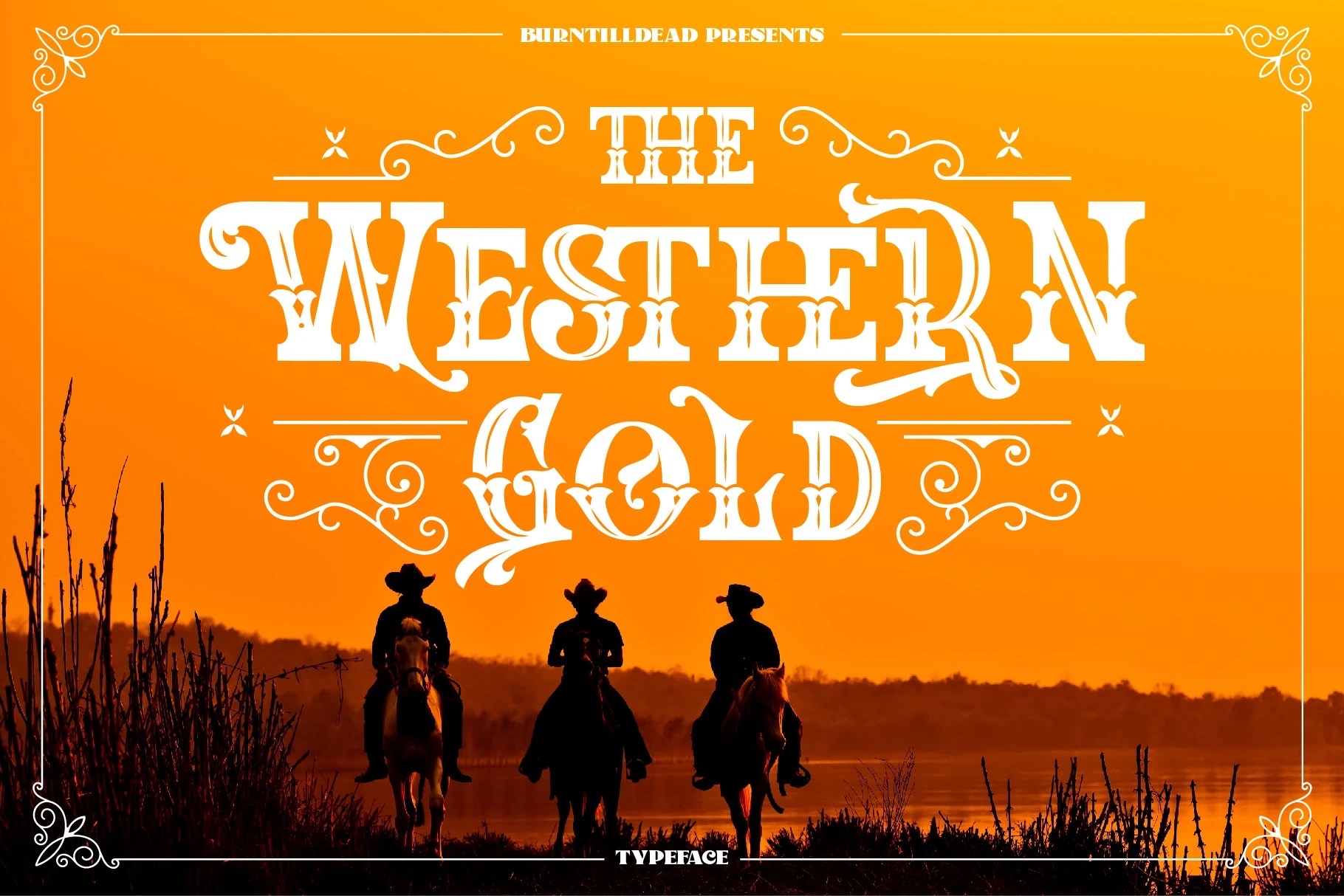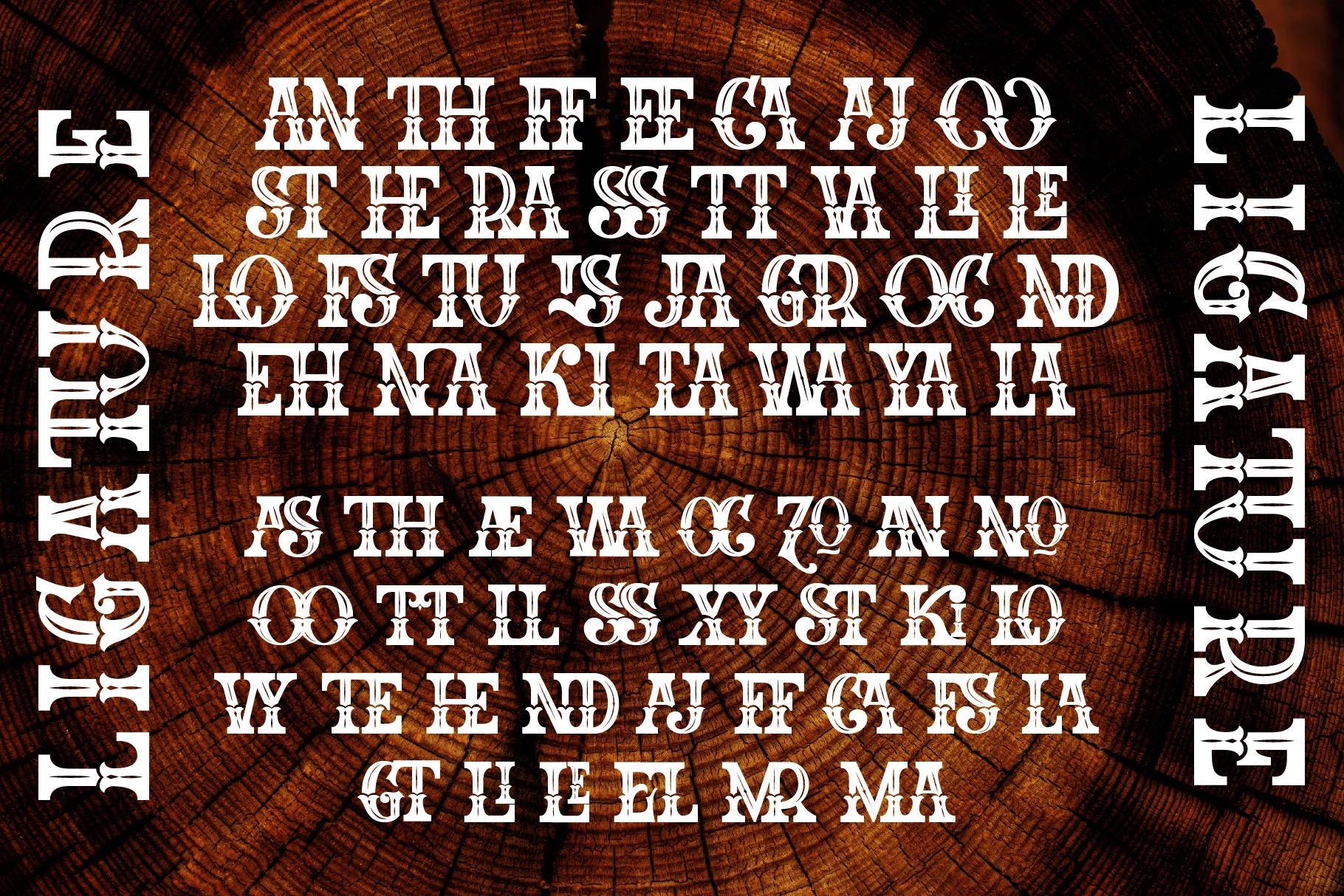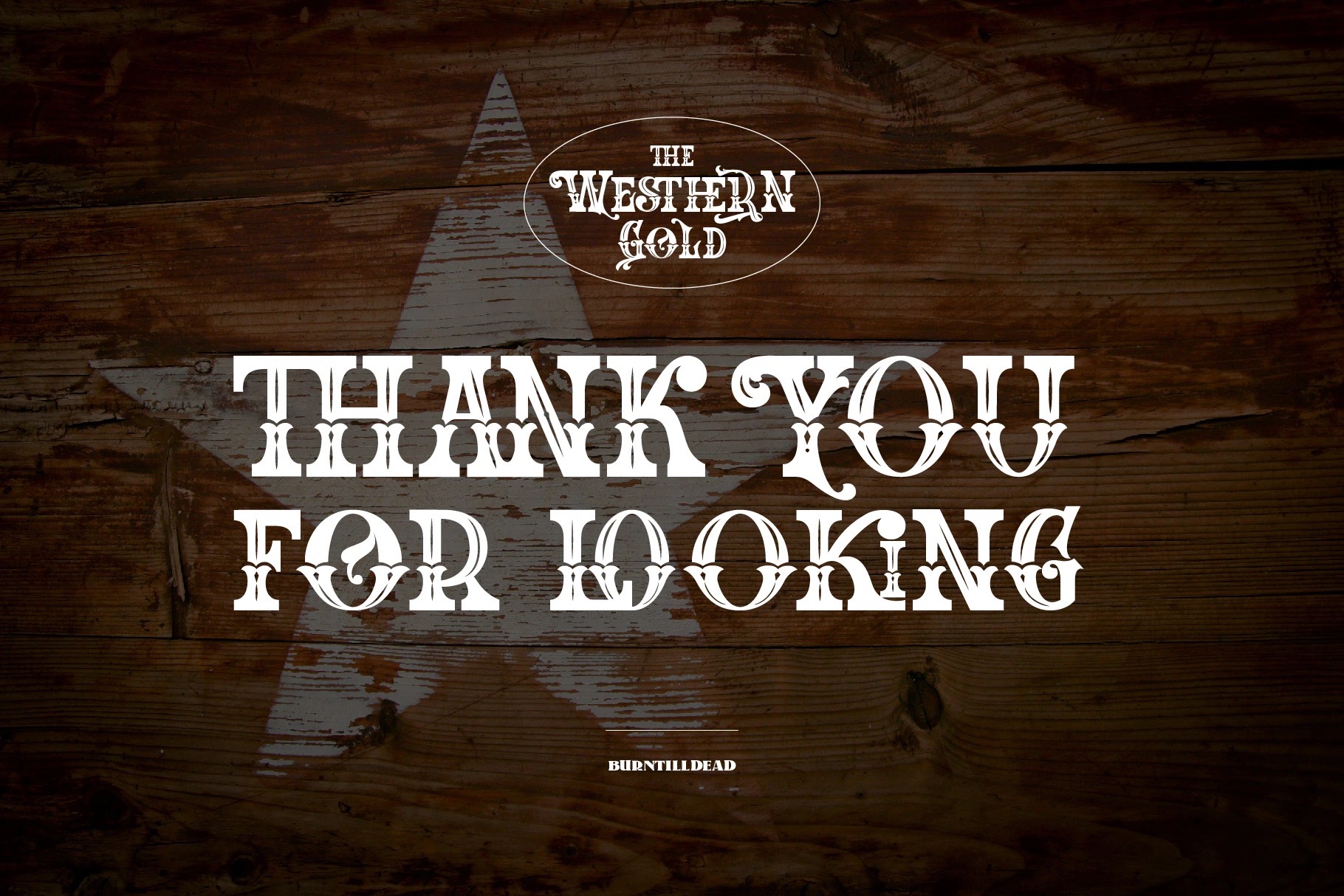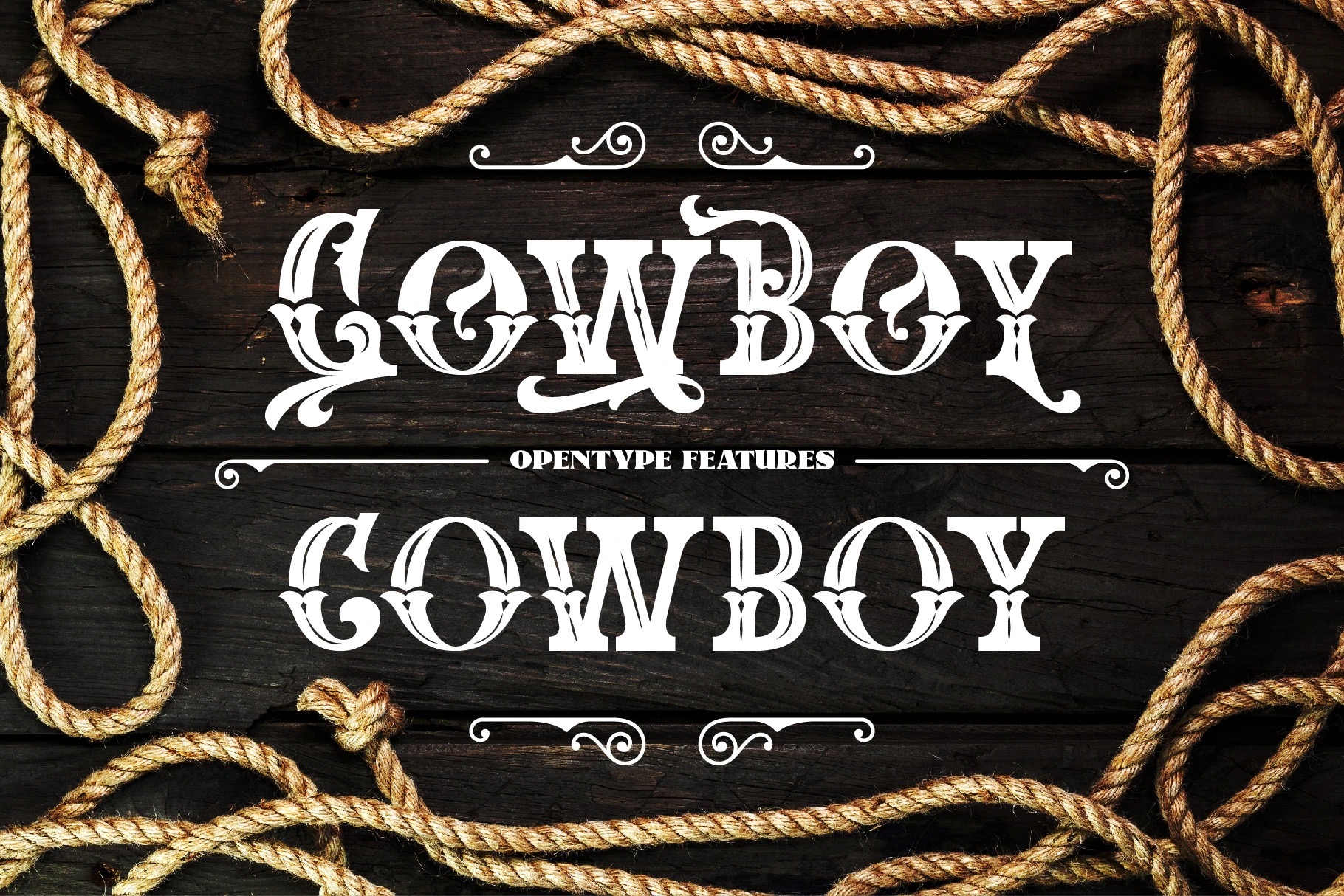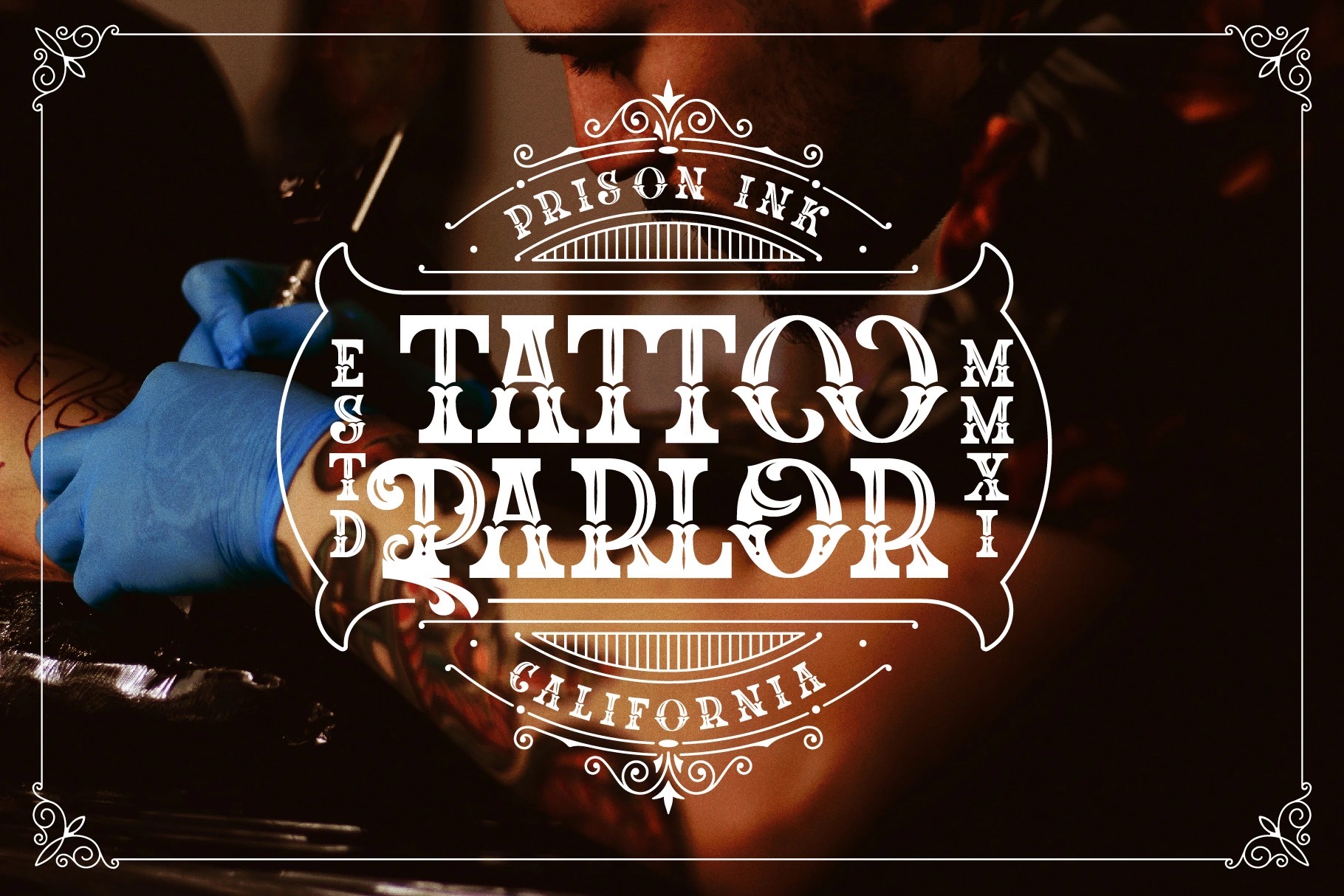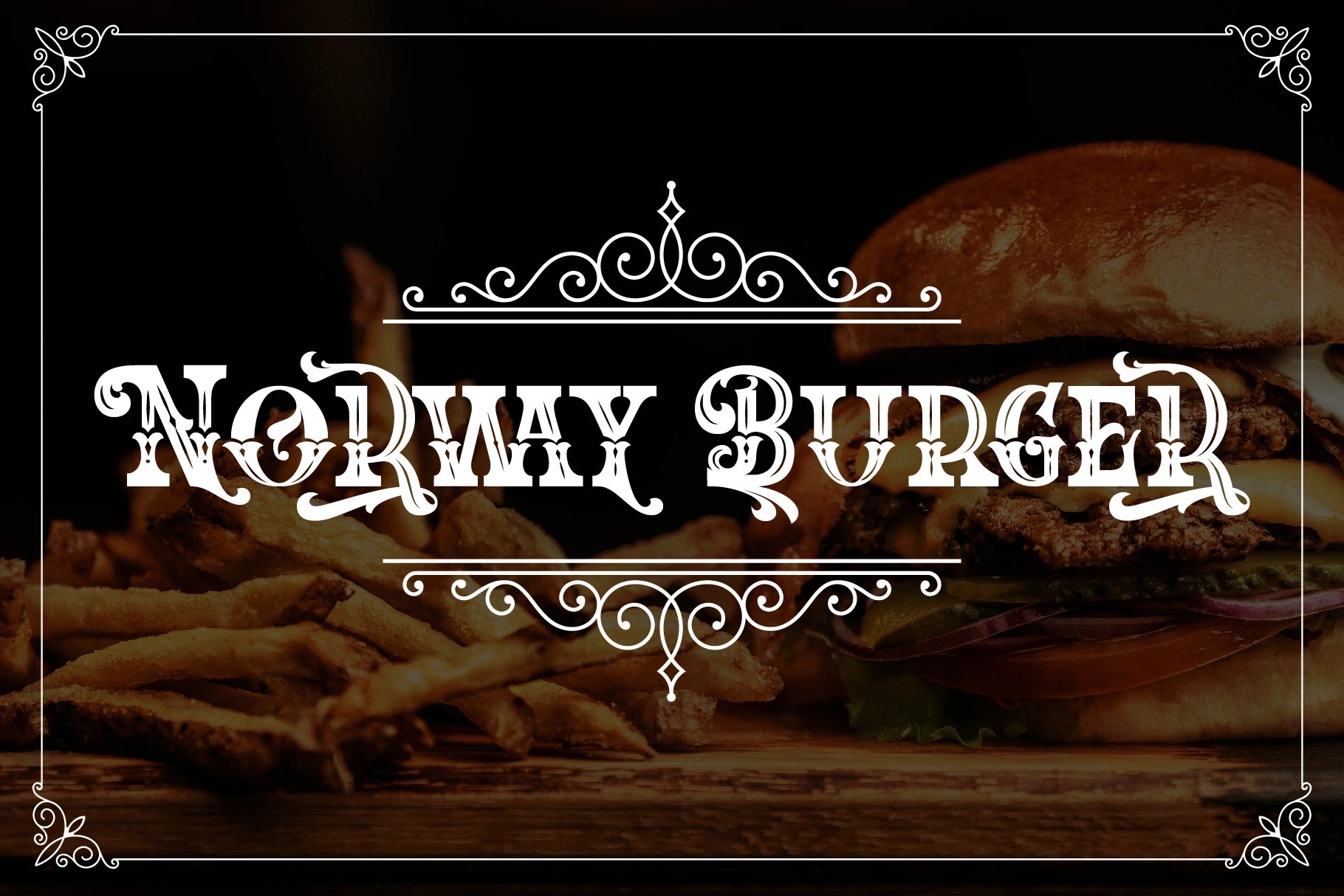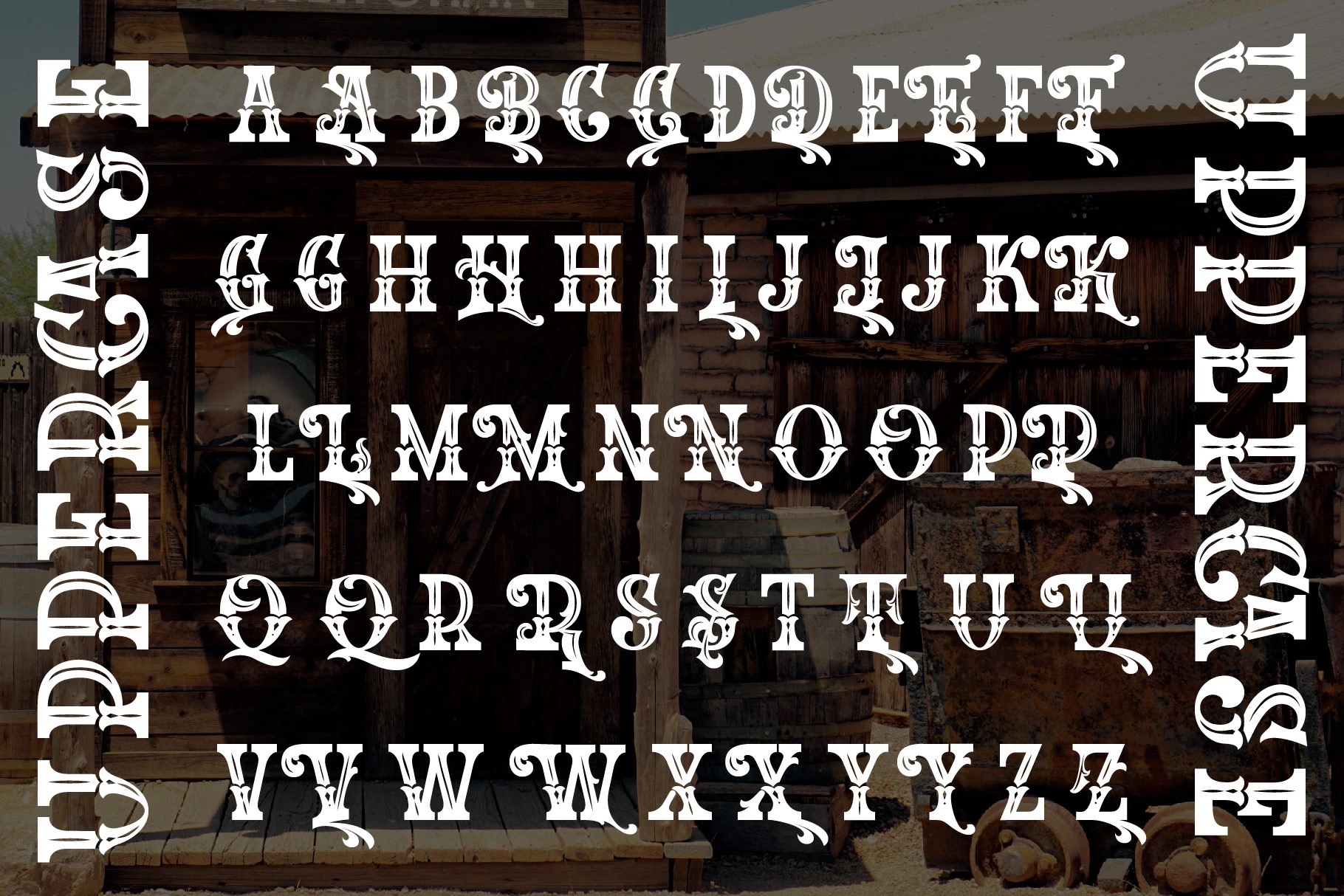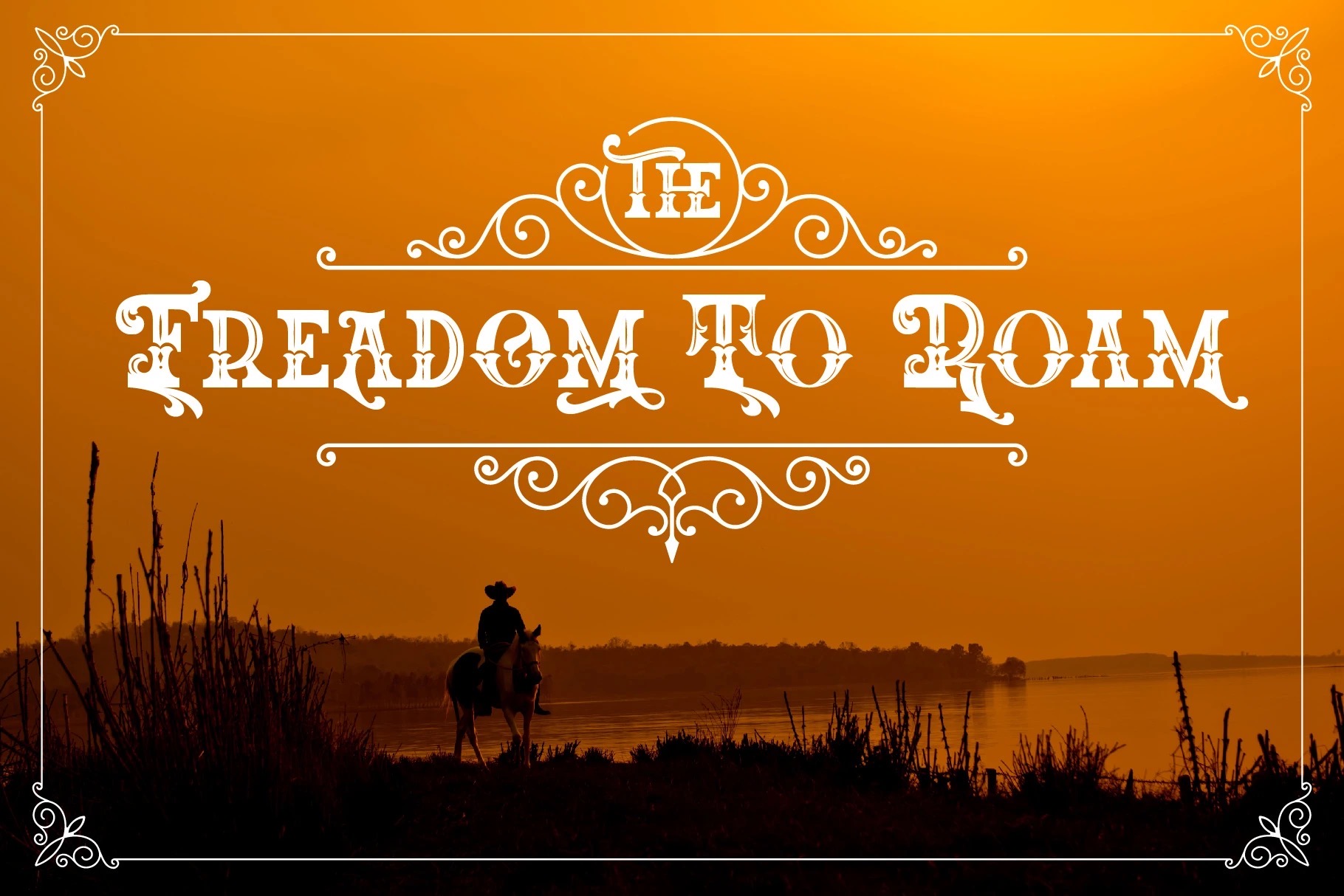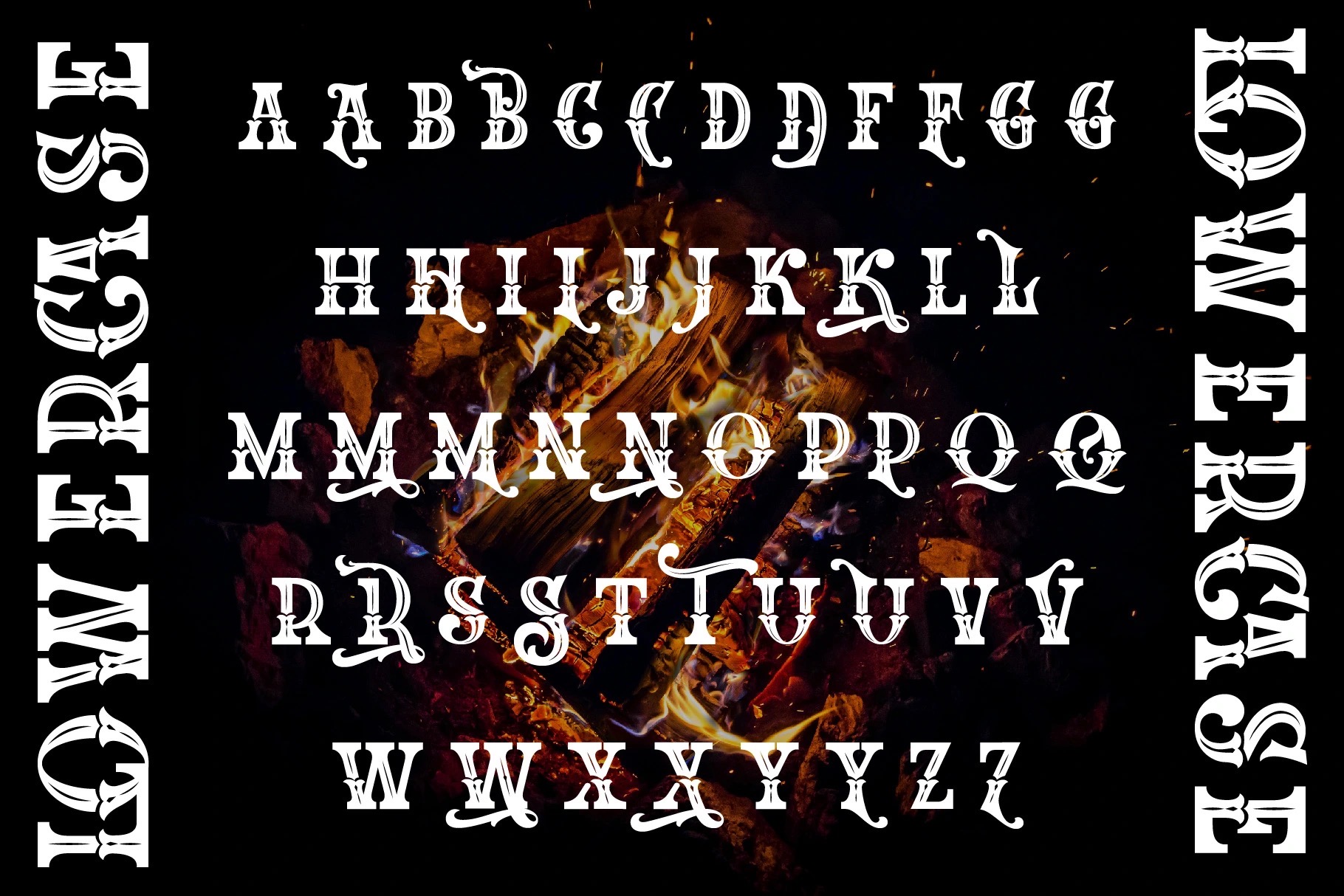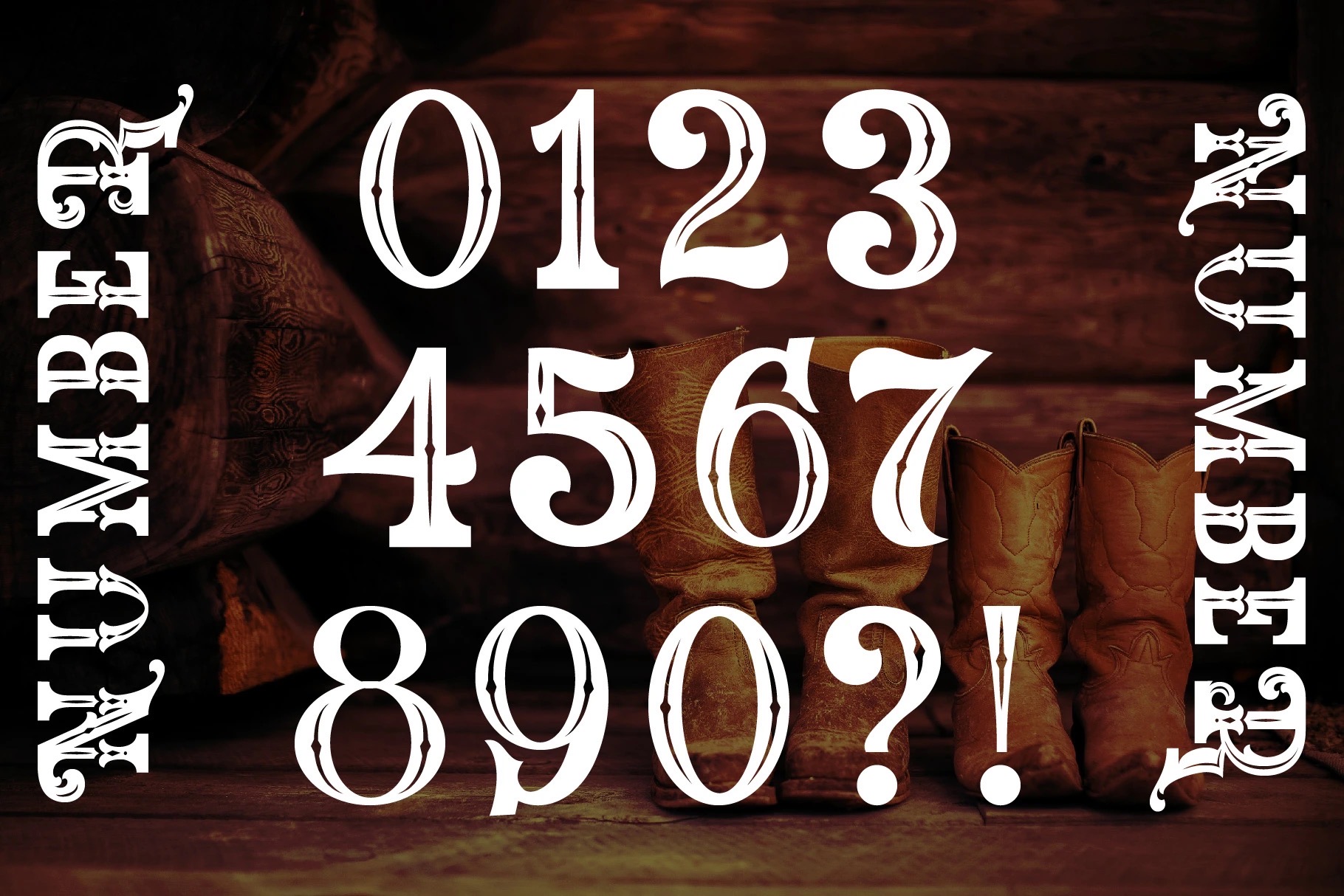
The Western Gold
Howdy cowboy, say hello to “The Western Gold” a brand new western font, inspired by classic American wood sign style. Powered with opentype features (Alternates & ligatures) – Mulitilingual ready!
Perfect and suitable for branding, headline, logotype, sticker, editorial design, and etc.
• A – Z set (Uppercase & Lowercase All Caps)
• Number
• Punctuation
• Alternates
• Ligatures
• Multilingual